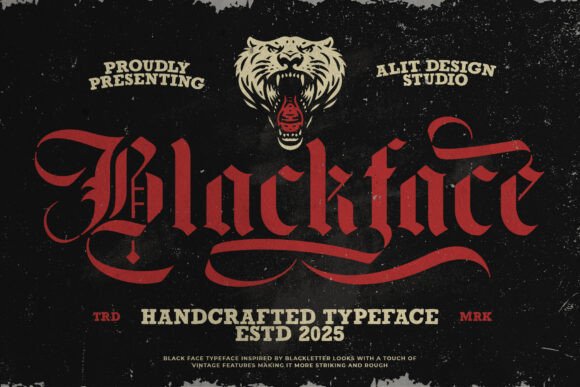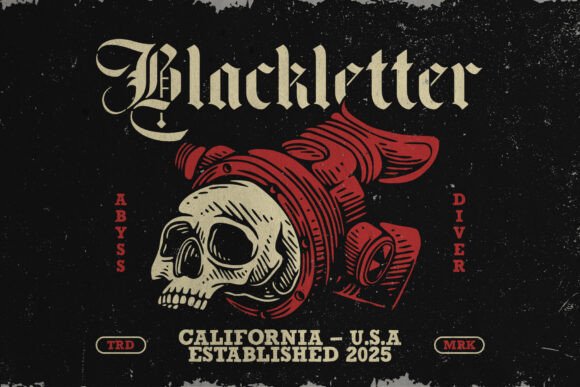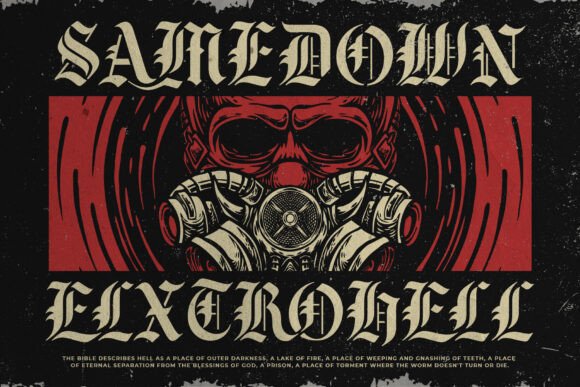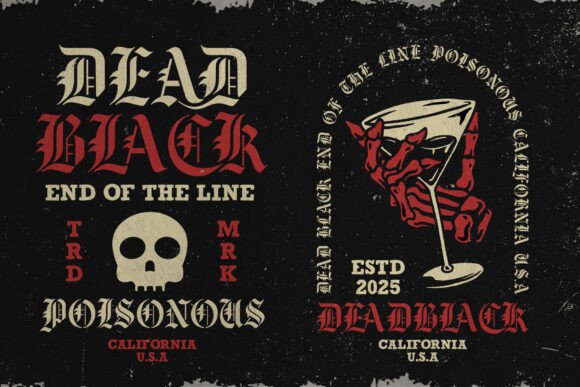
Black Face Font
About the Black Face Font
From logos to headlines, the Black Face Font is the perfect choice for making a lasting impression. Unleash the power of Black Face, a meticulously crafted blackletter stencil typeface that blends historical elegance with modern boldness. This font is designed for creators who dare to stand out—whether you’re designing tattoos, branding, posters, album covers, or apparel.
Black Face Font excels in headline applications, short impactful statements, and branding projects requiring a strong, authoritative presence. Its bold geometry works particularly well for posters, logos, and packaging where a statement needs to be made quickly and memorably. Avoid using it for body text or longform content; its highly decorative nature reduces readability in extended passages.
The font’s core personality is bold and assertive, yet retains a classic elegance due to its blackletter origins. Brands conveying power, luxury, or a rebellious spirit will find it highly effective.
Pairing Black Face with a clean sans-serif like Helvetica Neue for body text or a minimalist geometric sans-serif provides excellent contrast and readability. For a more traditional feel, consider pairing it with a classic serif like Garamond or a more contemporary serif like Playfair Display. Avoid pairing with other highly decorative fonts, as this would create visual clutter.
Black Face Font Usage Examples
Black Face Font Example